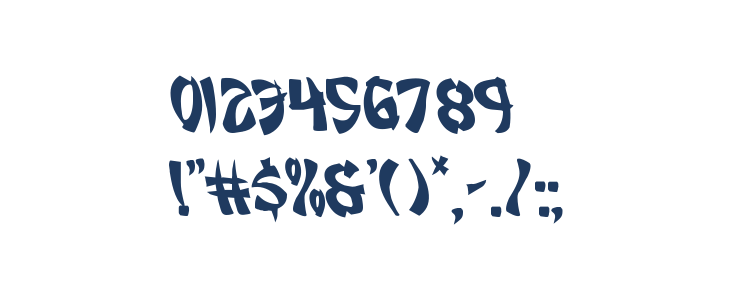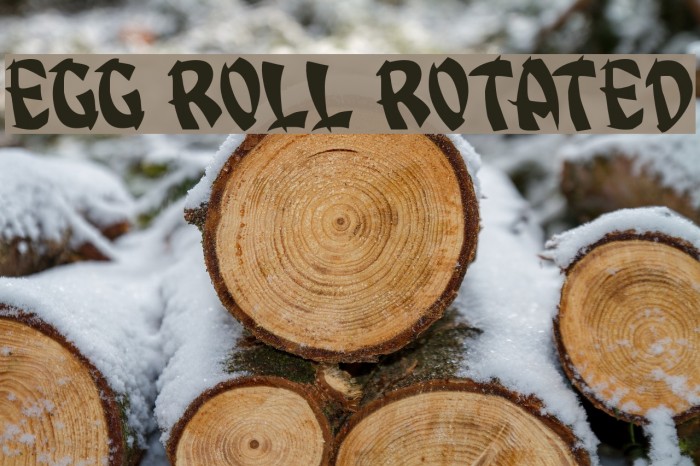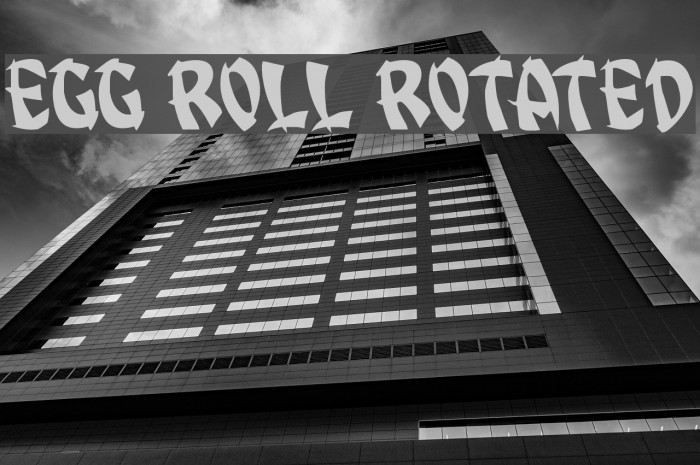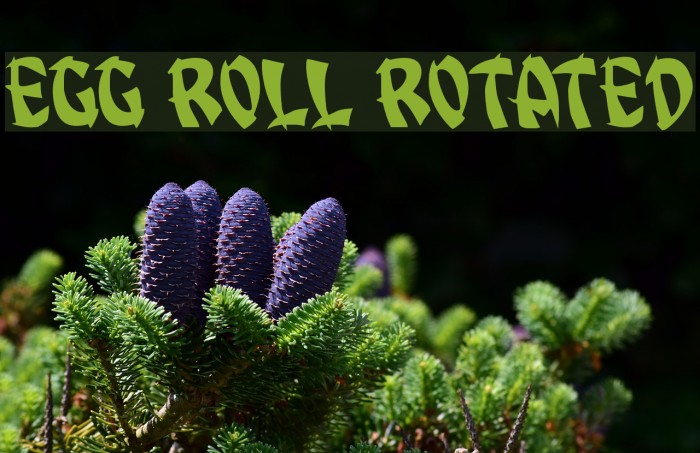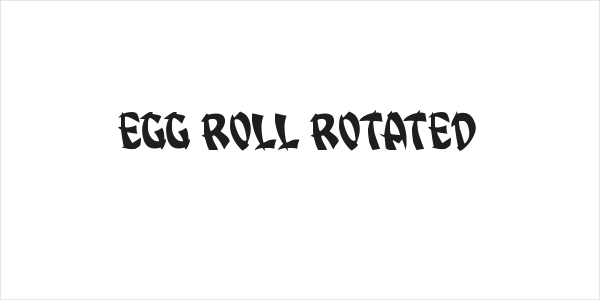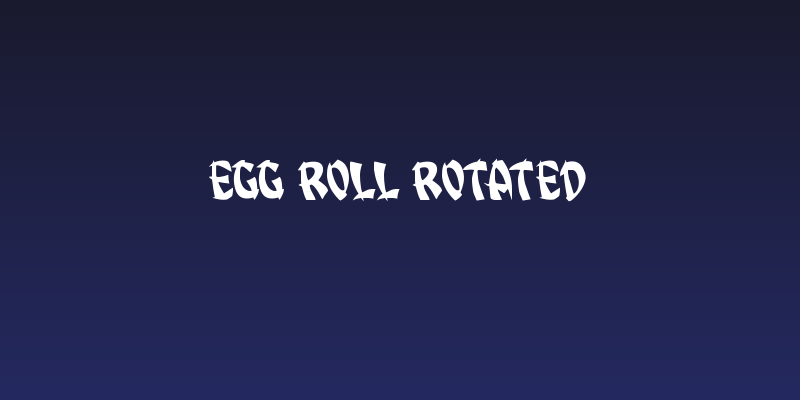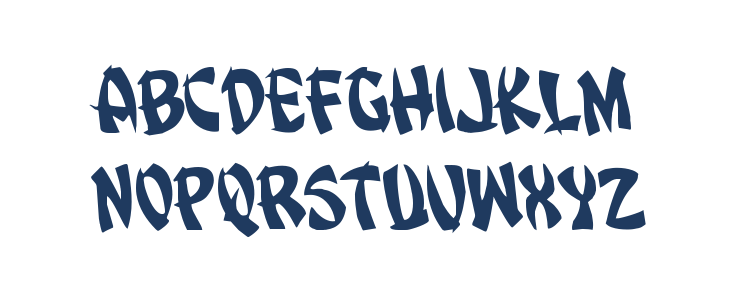
Egg Roll Rotated Font
Egg Roll Rotated Description
This font features a bold and dynamic style with a graffiti-like appearance. The characters are thick and angular, with sharp edges and a sense of movement, giving it a rebellious and energetic vibe. The uppercase and lowercase letters maintain a consistent style, with exaggerated curves and points that create a sense of rhythm and flow. The numbers and special characters follow the same design principles, ensuring uniformity across the font. This font is ideal for projects that require a bold statement or an urban, edgy feel.
| Overall Style | Urban, Edgy, Rebellious |
| Proposed Projects | Ideal for street art designs, music album covers, event posters, and urban-themed branding. |